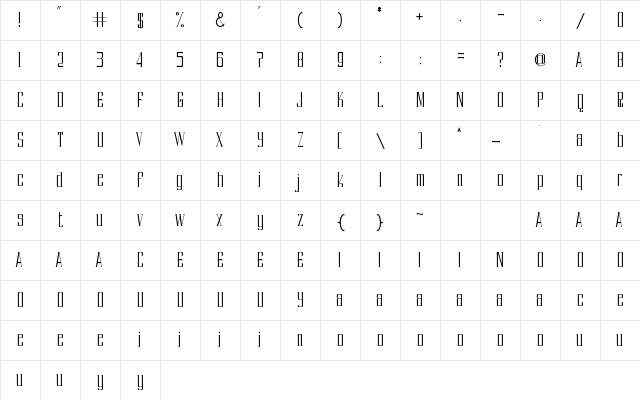
Drs Soerapto Regular
| Designer | sugiharto designfont |
Drs Soerapto is a composed and adaptable typeface that performs quietly and consistently across a wide range of design contexts.